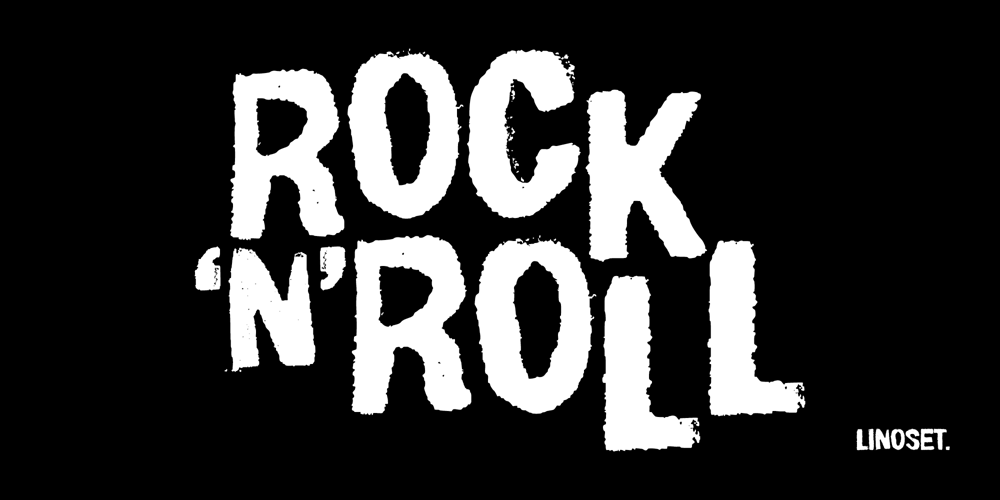
Linoset Font Family was designed by Daniel Ensor and published by Ensor Creative. Linoset contains 1 styles and family package options. Linoset was created from cut and printed linoleum. The lettering is based on Helvetica Neue Condensed Bold – it has been cut, printed and re-drawn to take on a completely new life – it’s rough, tough and downright nasty!